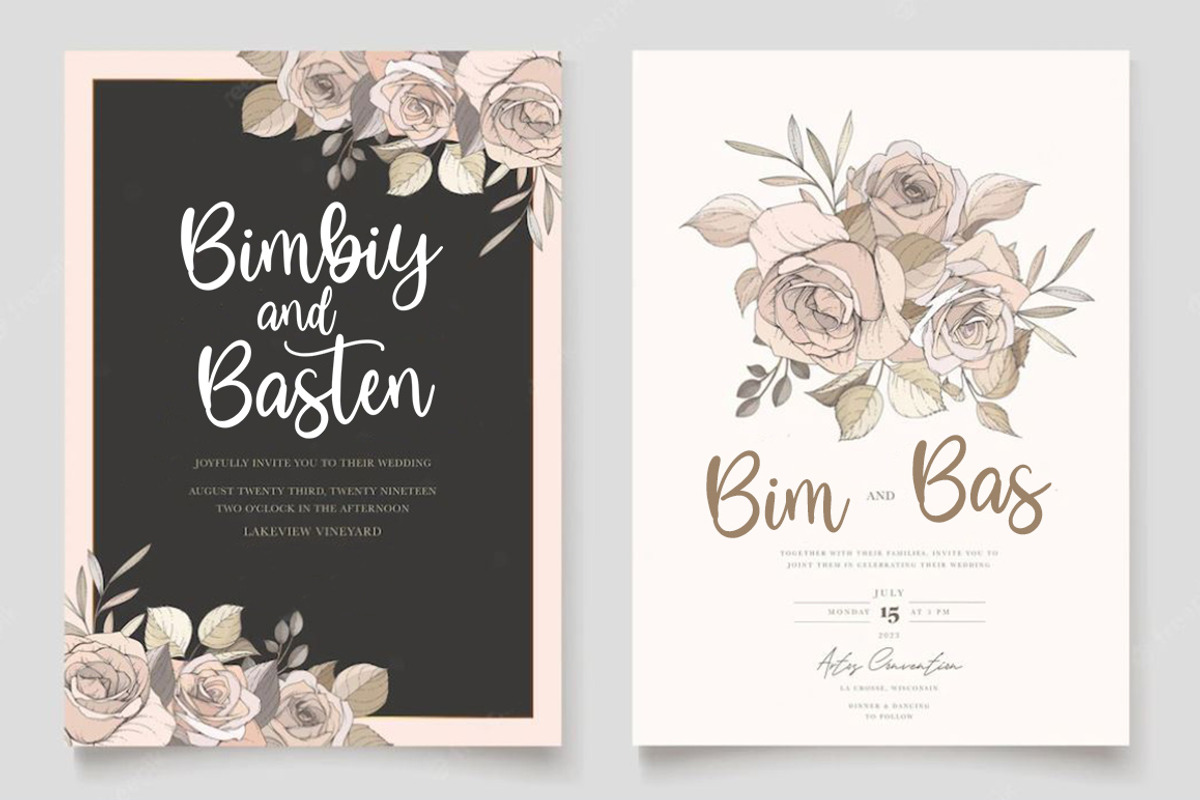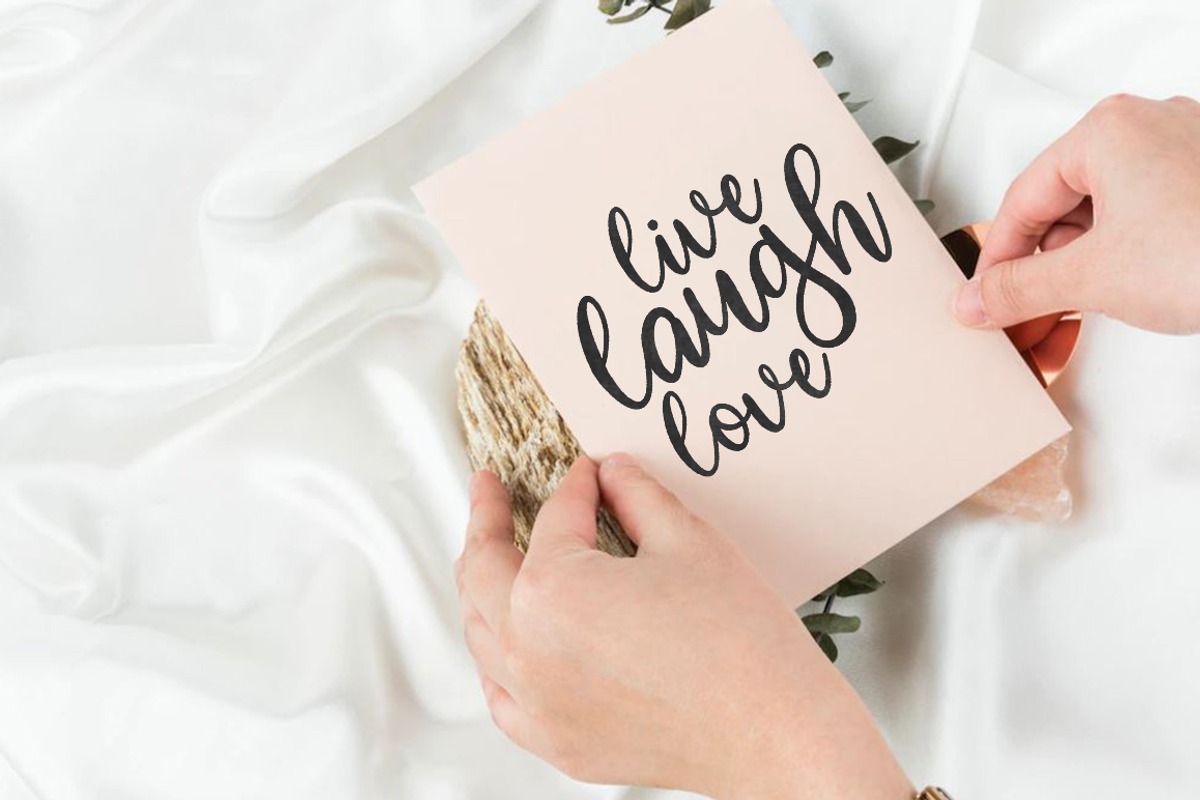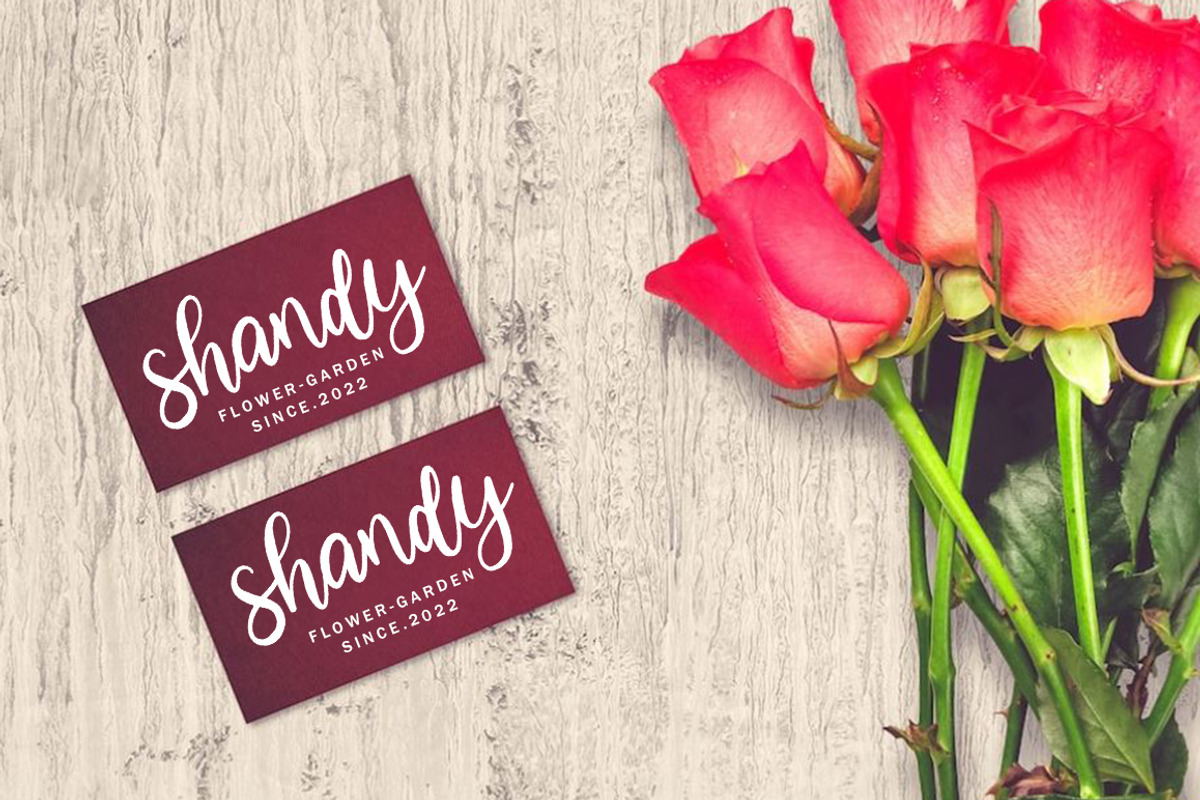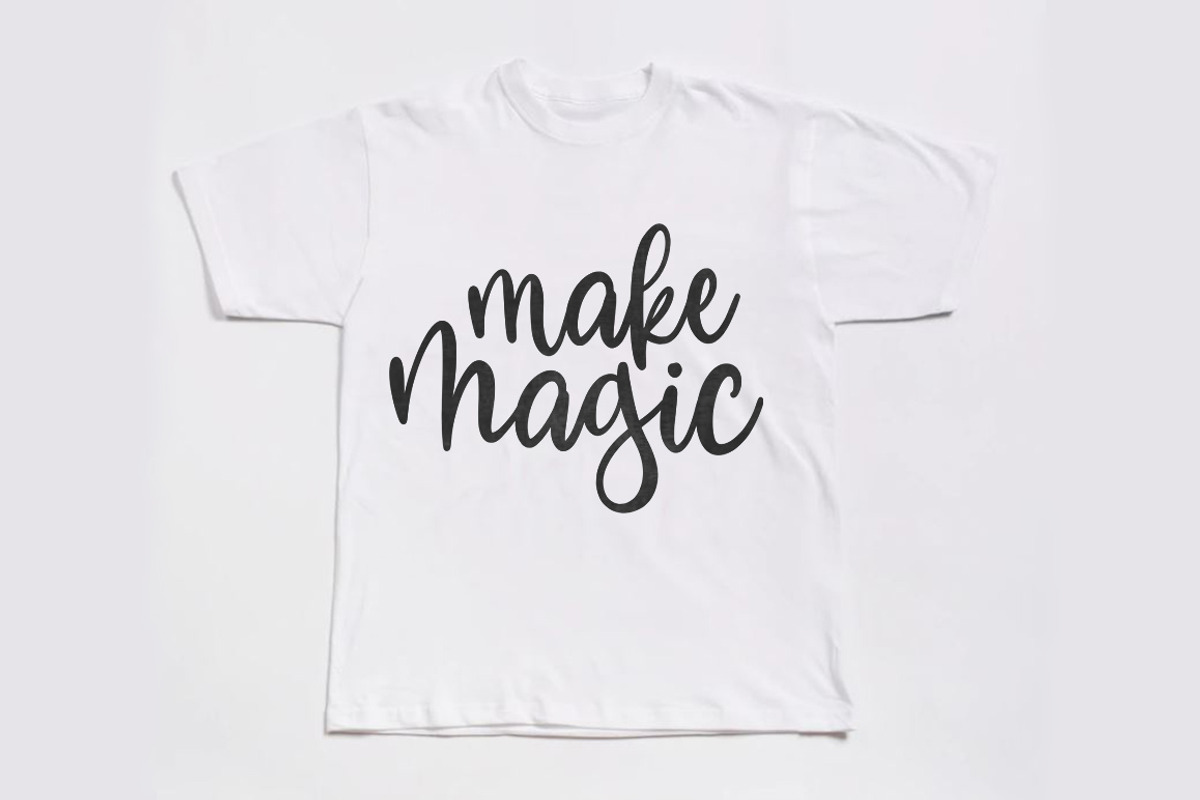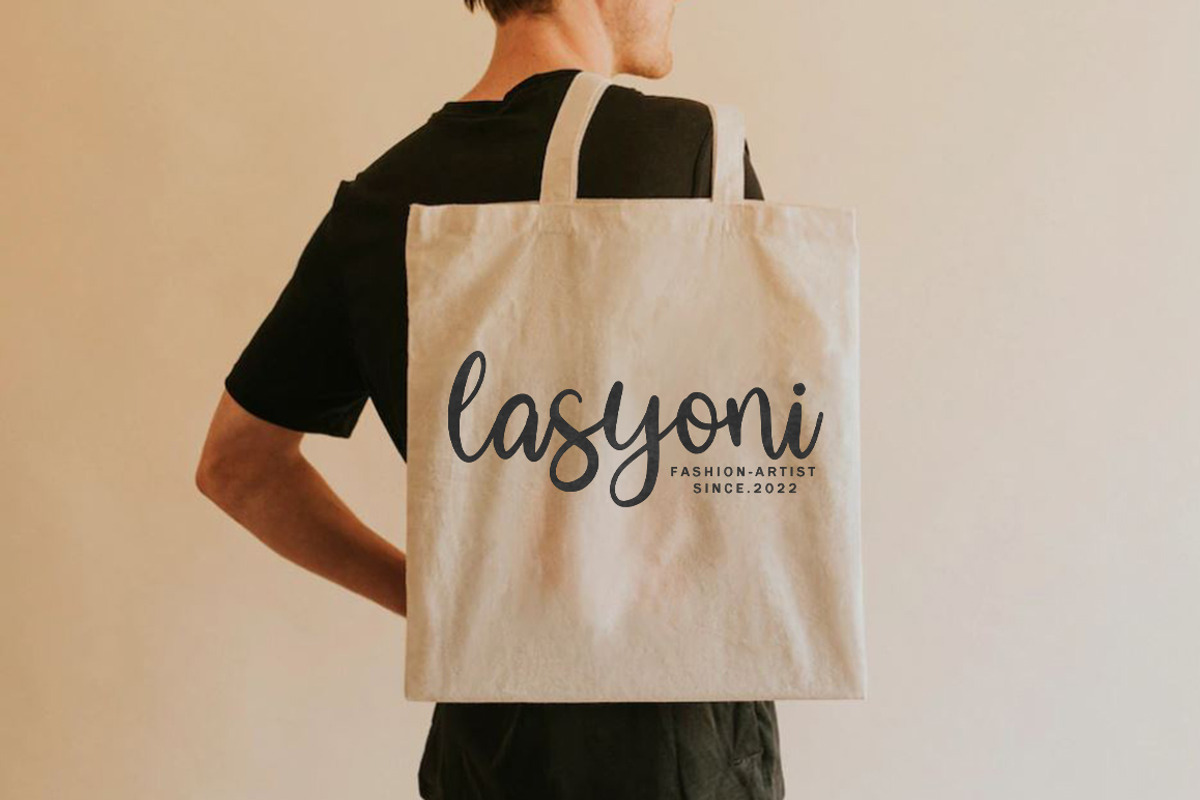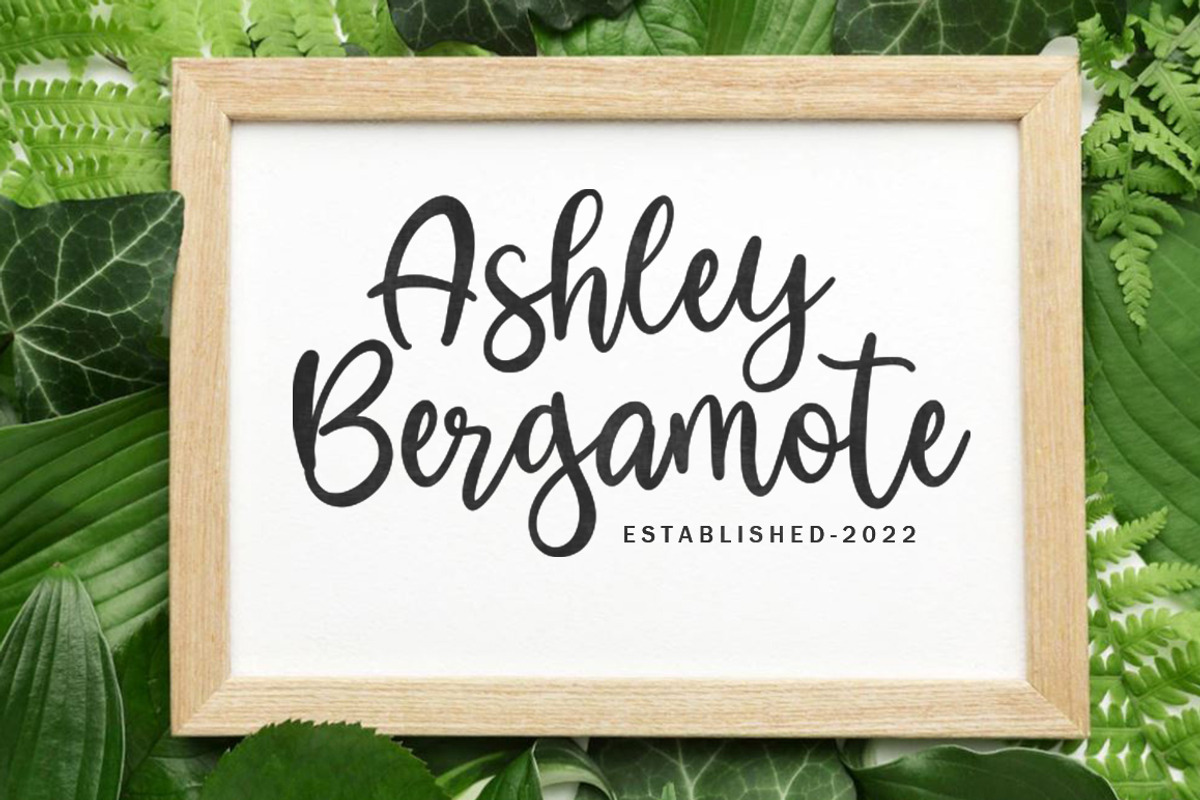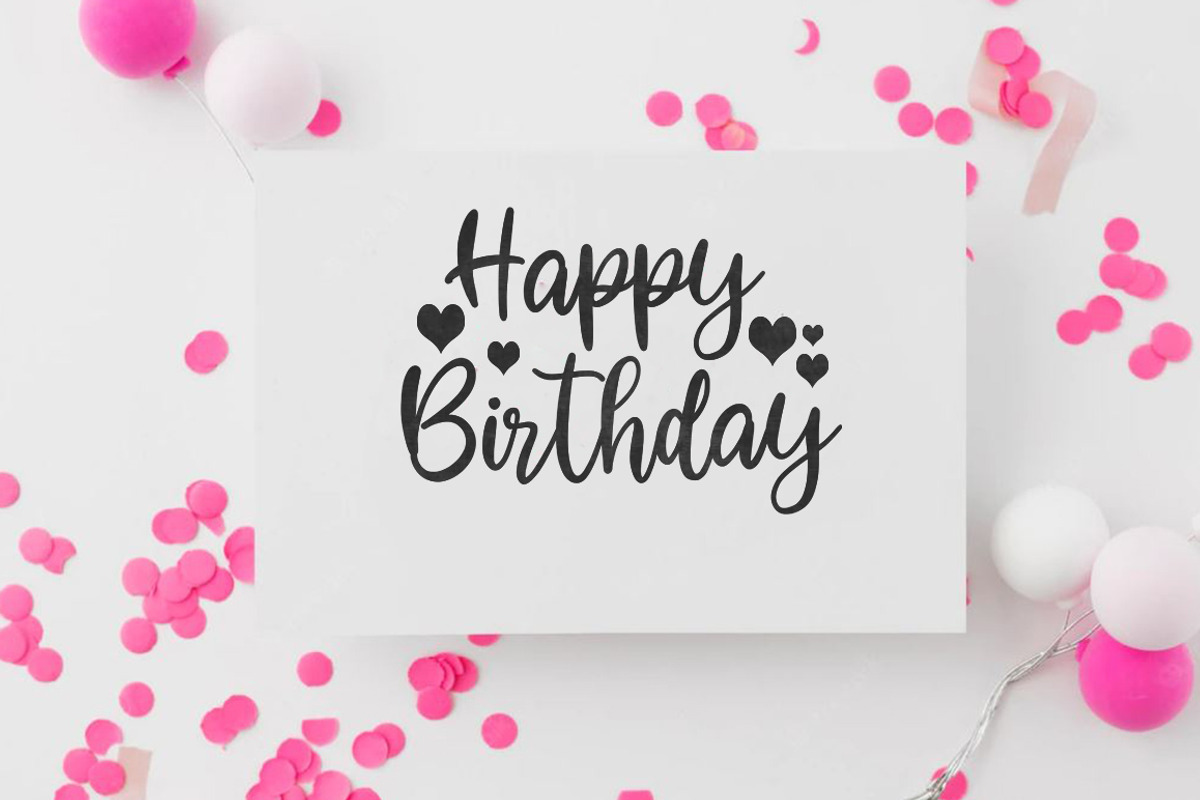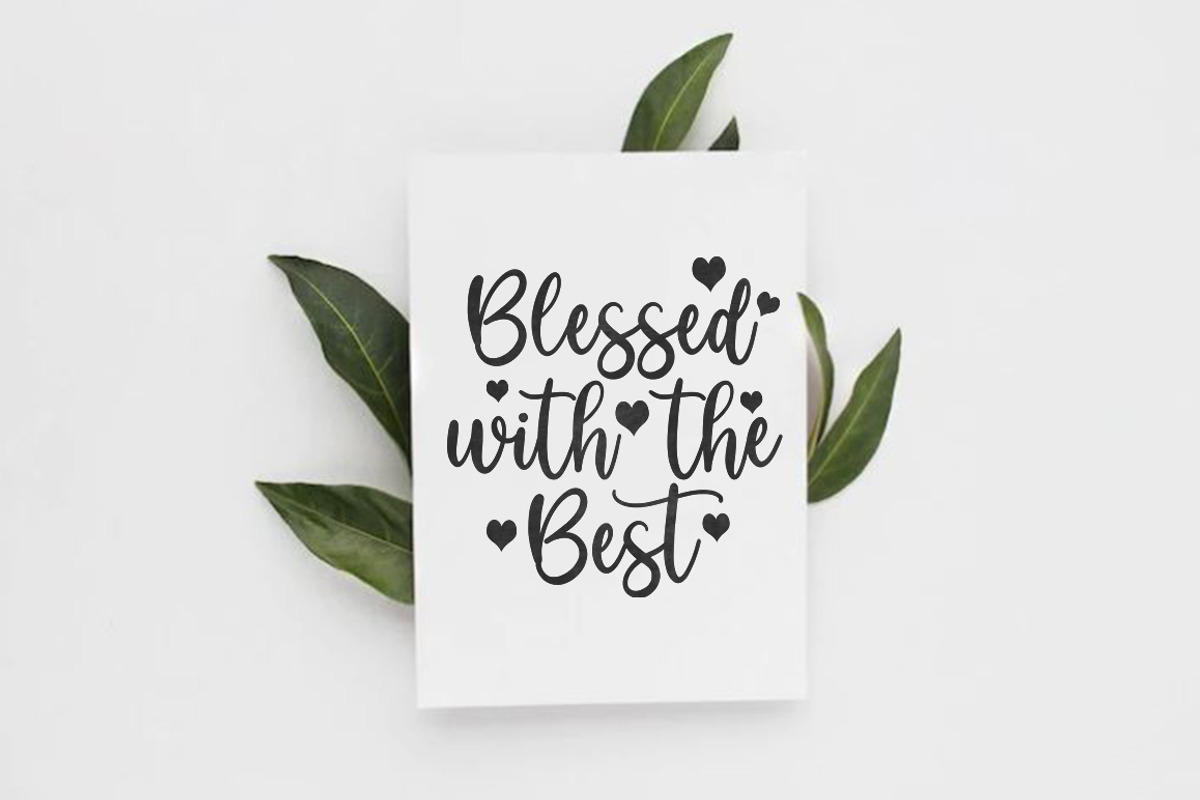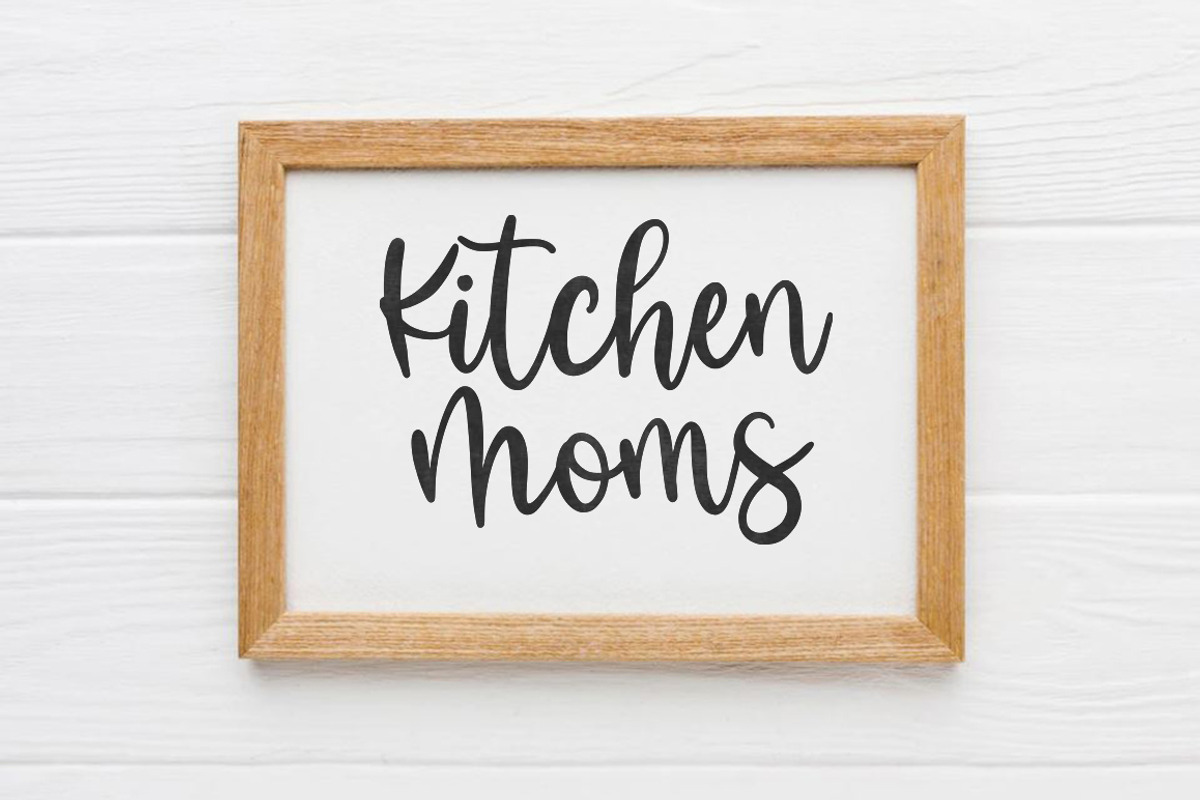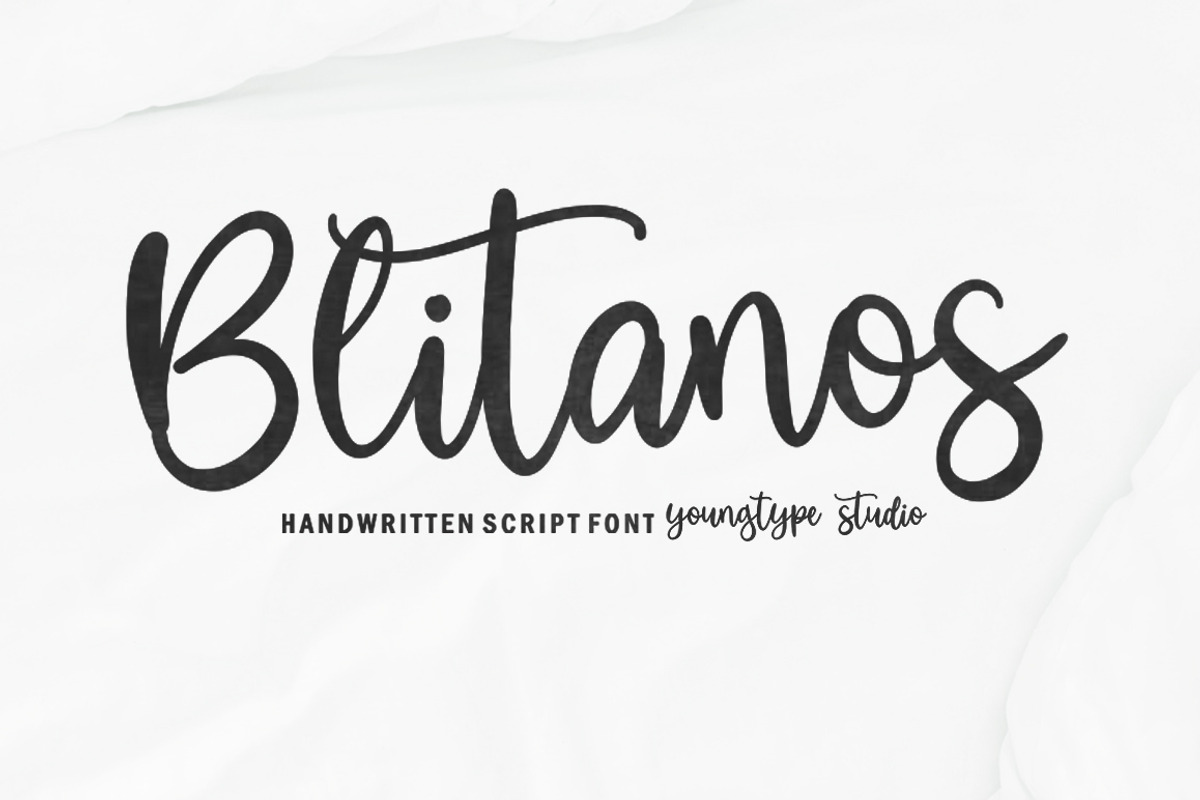
Blitanos - Handwritten
Blitanos-Handwritten is a hand brushed font created with a brush and ink, bold and irregular baseline. Contains a complete set of lowercase, uppercase, Alternates, ligatures, punctuation, numbers, and multilingual support.
This font ideal for use in watercolor design or lettering style bold hand, such as blog header, posters, wedding elements, t-shirt, apparel, cover books, business cards, greeting cards, branding, merchandise, invitations and handmade quotes and more.